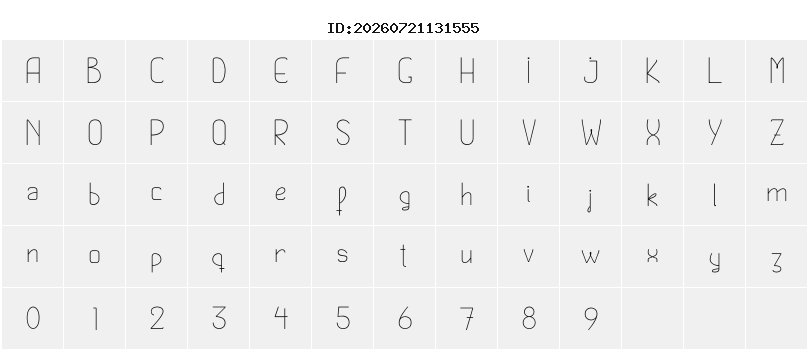
• Font Name: Fifont
• Font Style: Light
• Full Font Name: Fifont
• PostScript Name: Fifont
About Fifont.ttf
Fifont.ttf is a modern, elegant sans-serif font designed for ultimate readability and visual harmony. Perfect for branding, headlines, web design, and print materials.